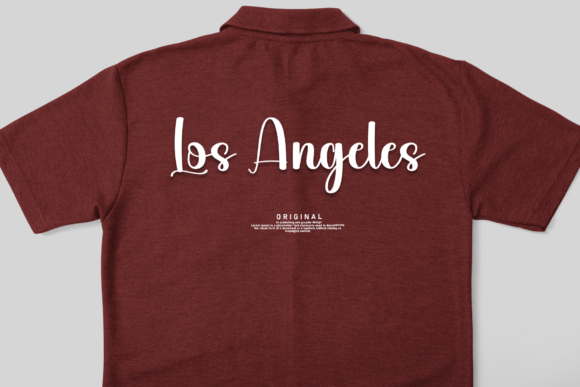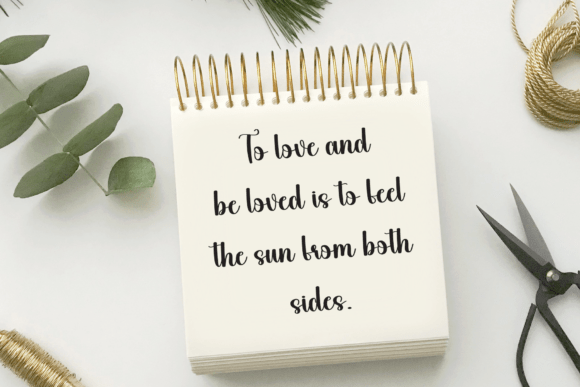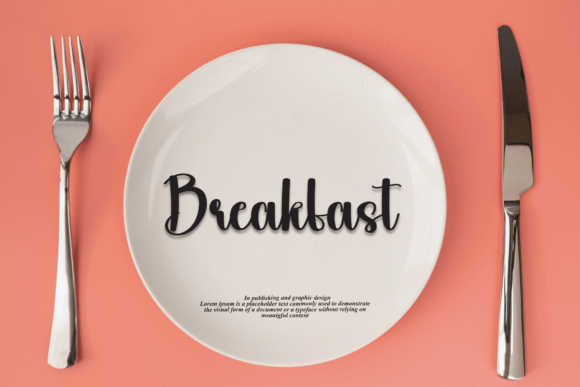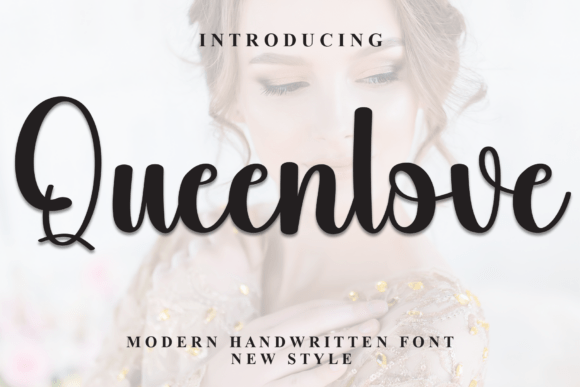
Introduction to Queenlove Font
Introducing a charming, handwritten display font – radiating a delightful and inviting aura.
Embodying sweetness and affability, this font brightens any design it graces It is a perfect choice for crafting sentimental wedding invitations or whimsical greeting cards, or indeed any design project looking to add a sprinkle of fun.
Key Features of Queenlove Font
Why Choose Queenlove Font?
Queenlove Font offers exceptional quality and versatility, making it a valuable addition to your design toolkit. Whether you’re creating for personal projects or commercial use, Queenlove Font delivers professional results.